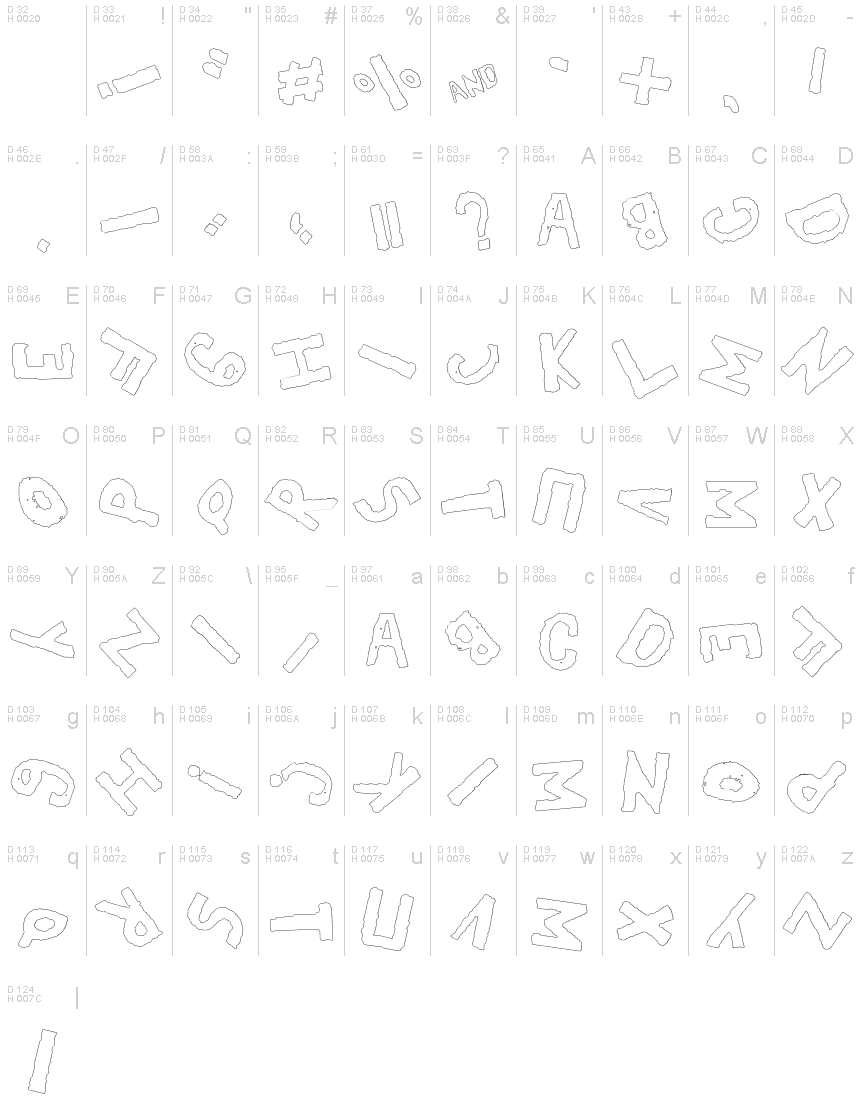
YES_outlinerotated Book
Inspired by the font used on multiple Daniel Bryan shirts. No numbers.
UPDATE: Now available in 3D, italic, rotated, shaken, outlined, 3D italic, 3D rotated, 3D shaken, outlined italic, outlined rotated and outlined shaken!